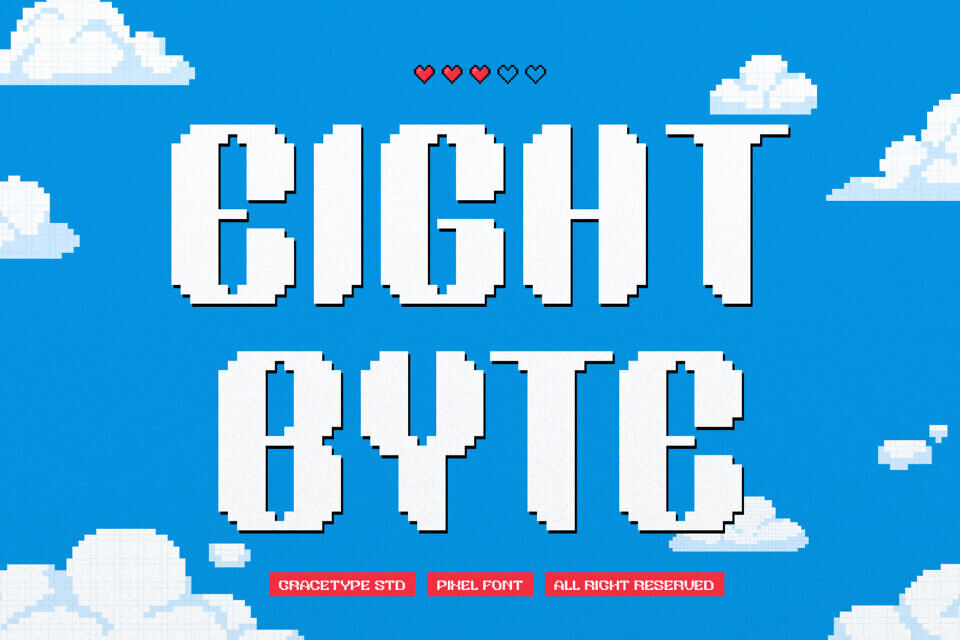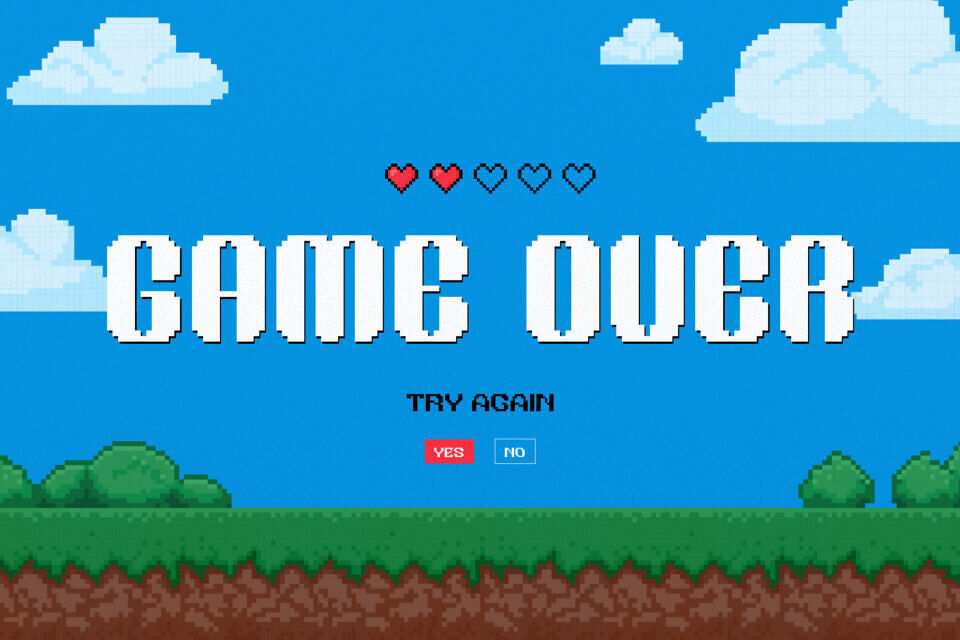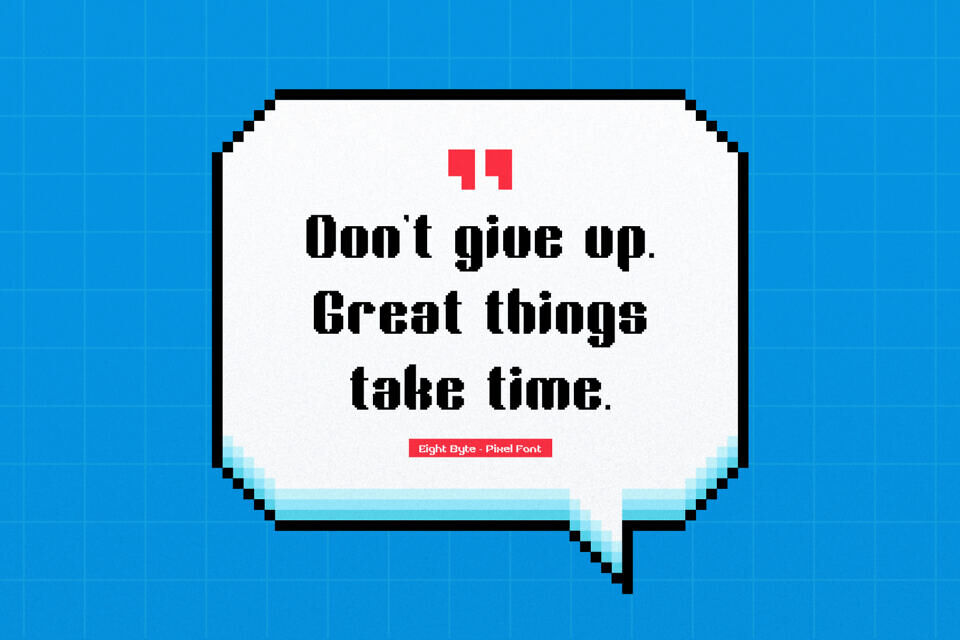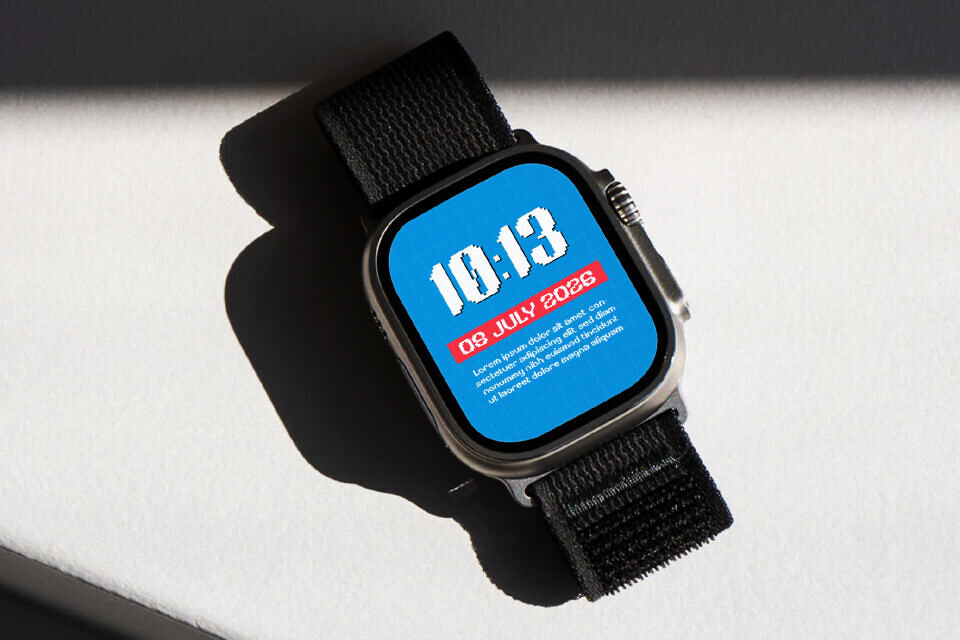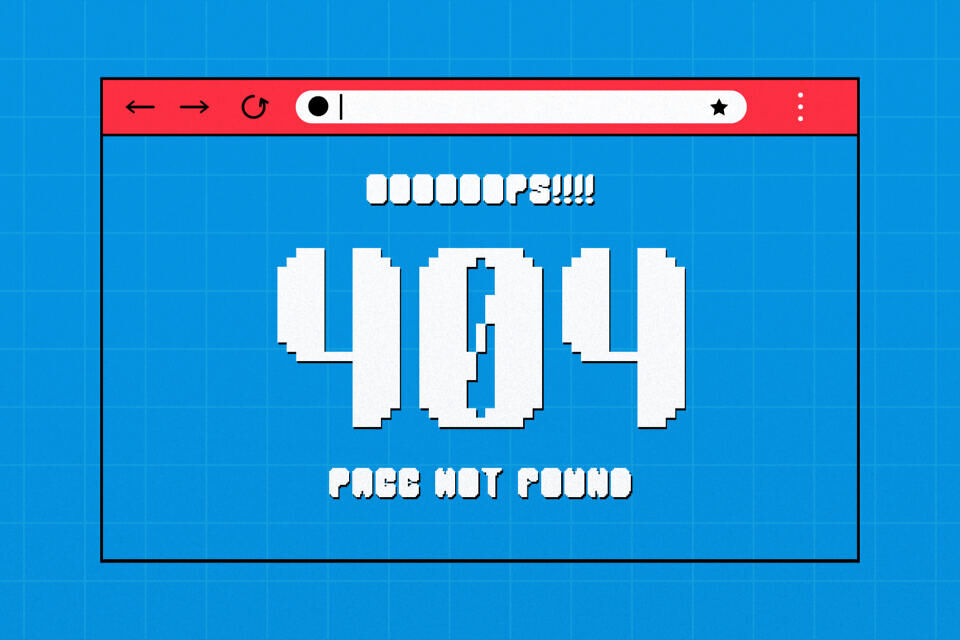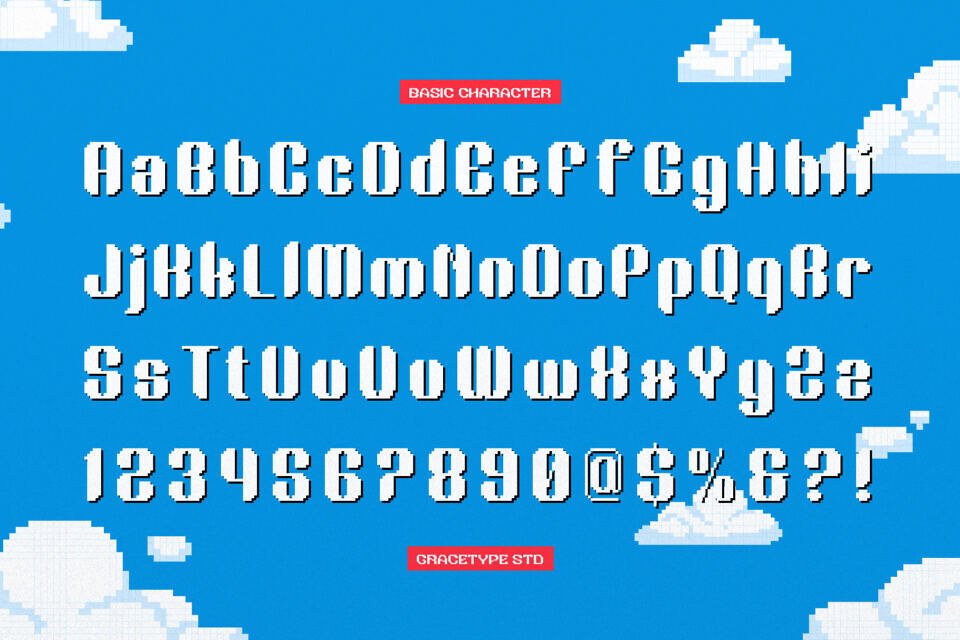
Eight Byte is a retro pixel font inspired by classic 8-bit arcade games and vintage computer graphics. Its crisp, blocky characters deliver an authentic nostalgic look, making it perfect for game titles, logos, posters, branding, packaging, and digital artwork. Whether you’re creating pixel art or retro-themed designs, Eight Byte adds a bold, old-school gaming aesthetic while maintaining excellent readability.